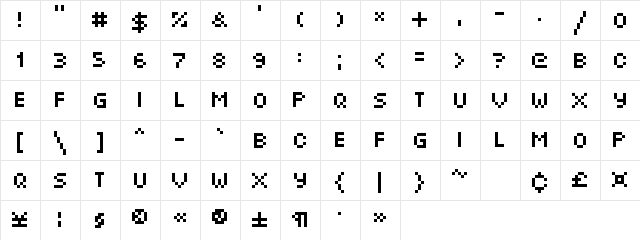
iFlash 502 Regular
| Designer | iNils |
Design Context for iFlash 502 Typeface
iFlash 502 takes a measured approach to typography — its balanced proportions and neutral character make it a reliable workhorse for both digital and print work.